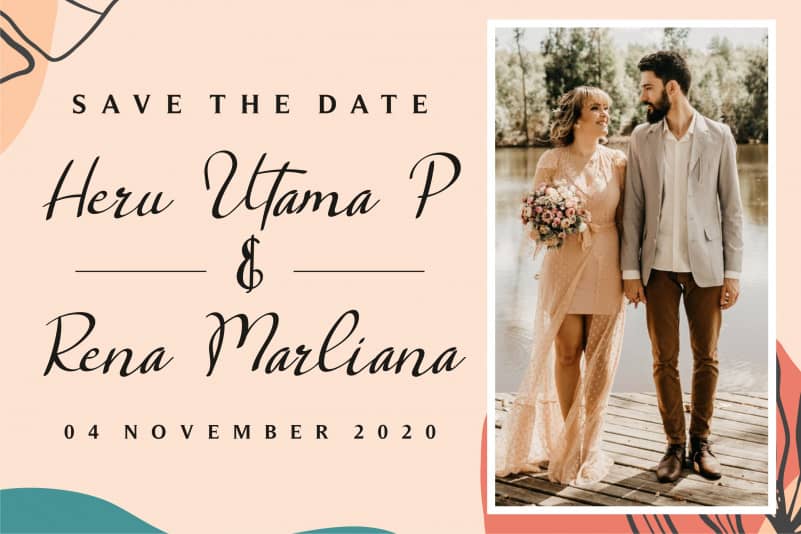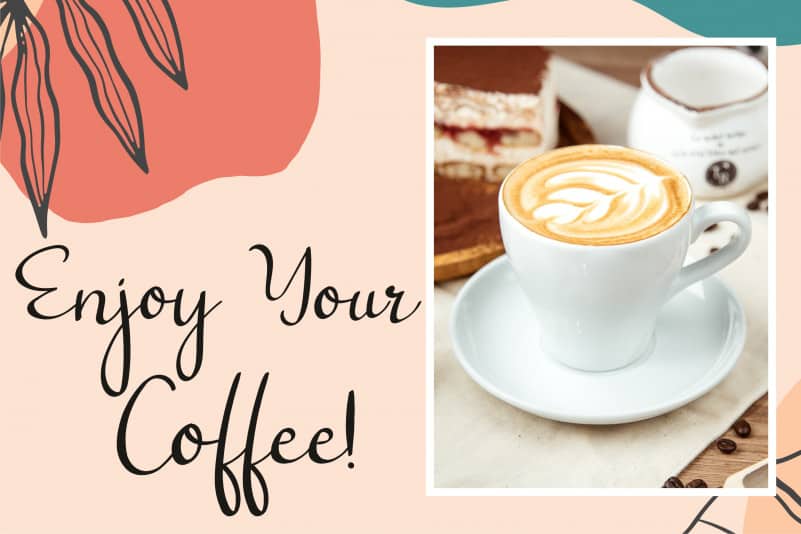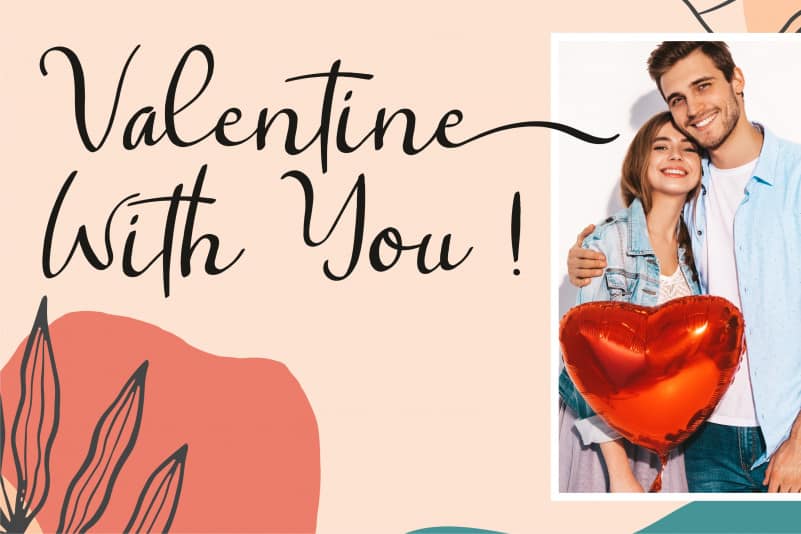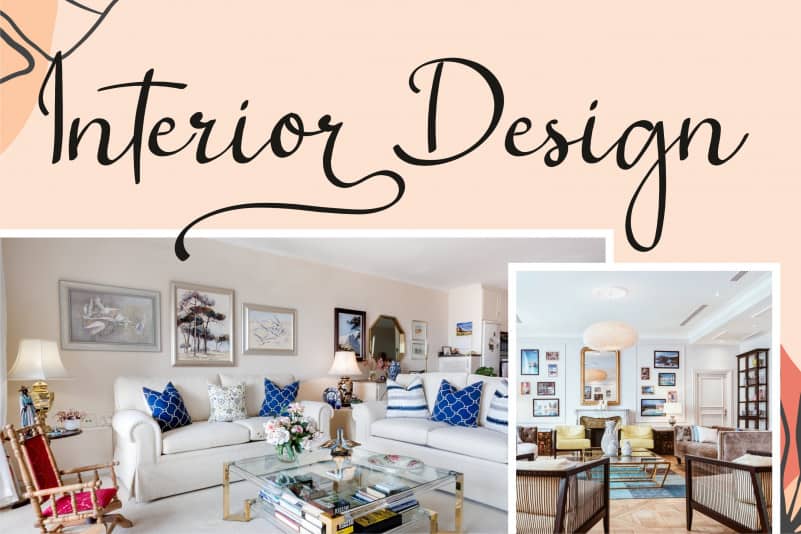
Salta Script Font is a fun and friendly handwritten font. This font is suitable for any projects such as: logos, branding projects, homeware designs, product packaging, mugs, quotes, posters, shopping bags, t-shirts, book covers, invitation cards, greeting cards, label, photography, watermark, special events, and all your other lovely projects that need a beautiful calligraphy taste.
This font is PUA encoded which means you can access all of the glyphs and swashes with ease!